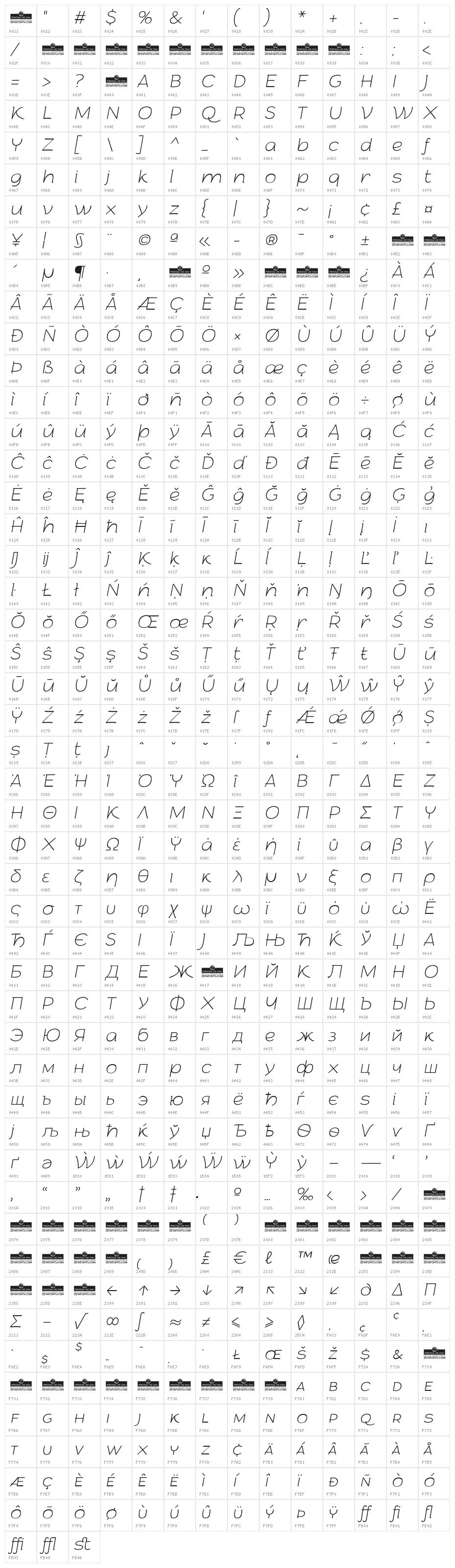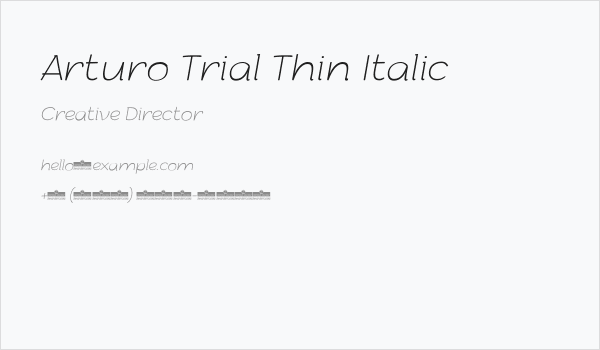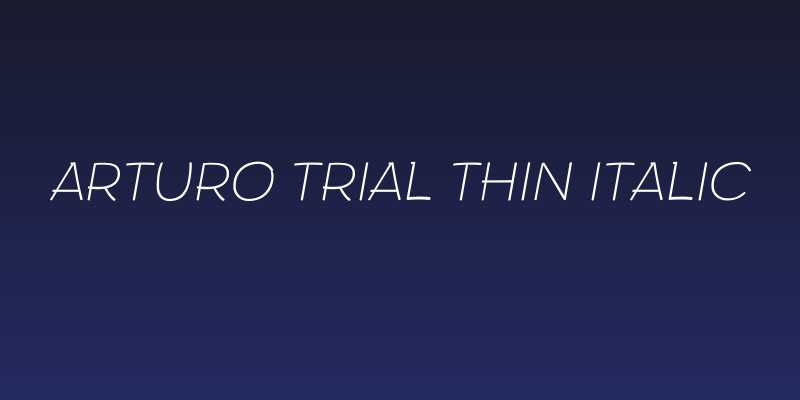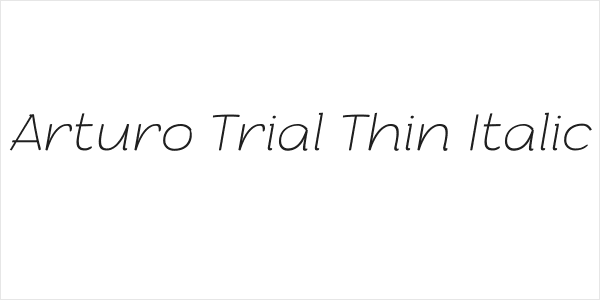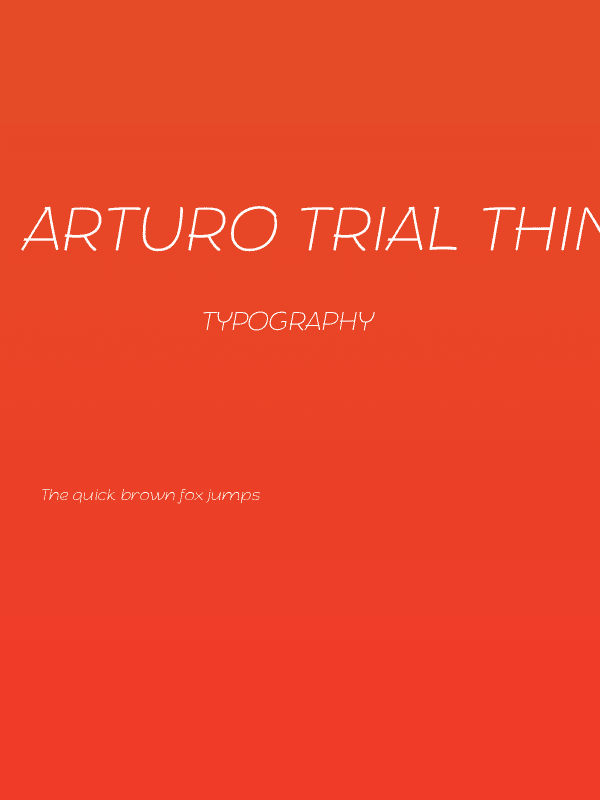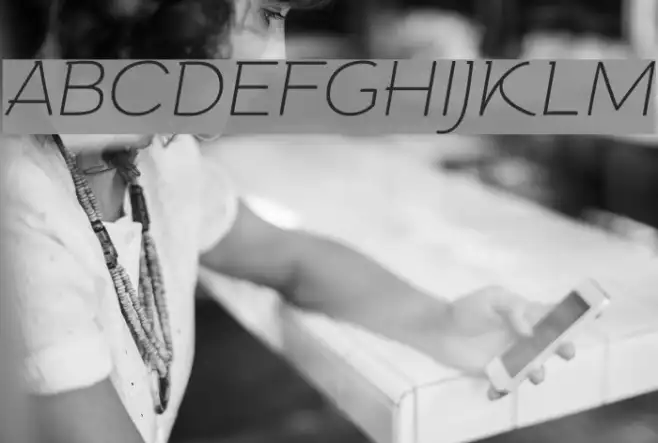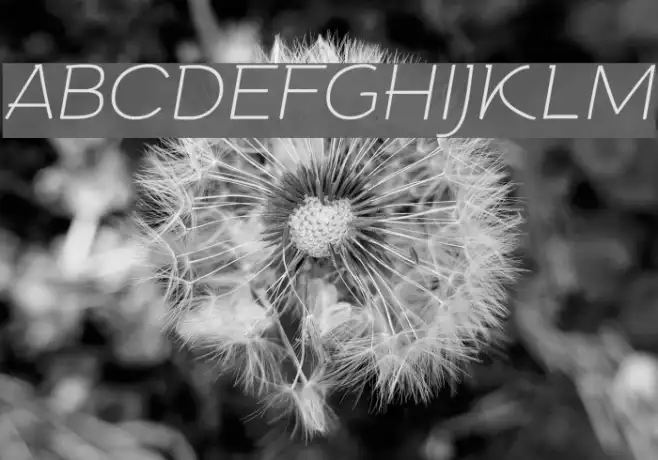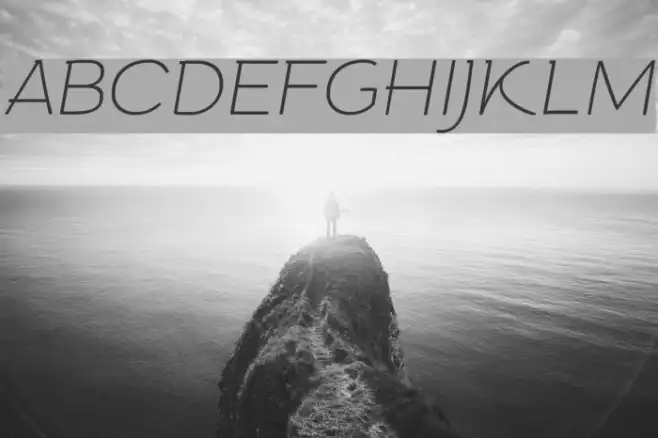
Arturo Trial Thin Italic Font
Arturo Trial Thin Italic Description
This font features a sleek and elegant design with a thin, italicized style. The characters are slightly slanted, giving a sense of motion and fluidity. The strokes are consistent and delicate, providing a refined and sophisticated appearance. The uppercase and lowercase letters maintain a harmonious balance, while the numerals and special characters complement the overall aesthetic. This font exudes a modern yet timeless quality, making it versatile for various design applications.
| Proposed Projects | Ideal for fashion magazines, elegant invitations, branding for luxury products, and modern web design. |